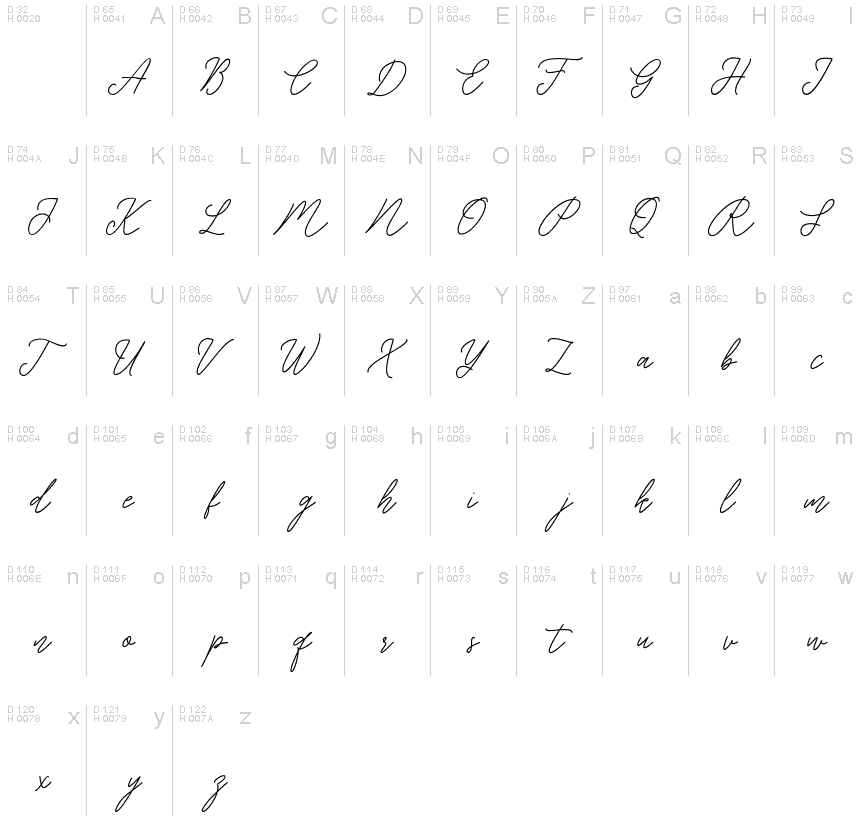
Sometime
Sometime, a charming handwritten font designed by AimCS, is perfect for adding a whimsical touch to any project. With its light weight and delicate strokes, Sometime exudes an air of playfulness that makes it ideal for designs that need to convey a sense of lightheartedness. This versatile font will work well on anything from greeting cards to social media graphics, and its distinct style will help your designs stand out. Whether you're working on a branding project or creating an invitation, Sometime is sure to add just the right touch of personality.